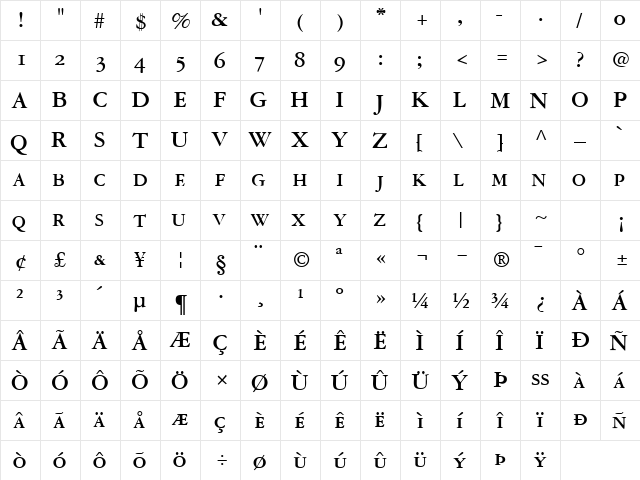
GaramondRepriseOSSCapsSSK Bold
Design Context for GaramondRepriseOSSCapsSSK Typeface
GaramondRepriseOSSCapsSSK takes a measured approach to typography — its balanced proportions and neutral character make it a reliable workhorse for both digital and print work. Its bold stroke weight gives it real presence on the page.